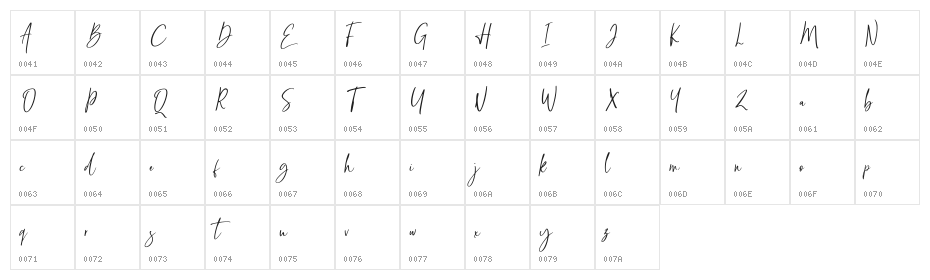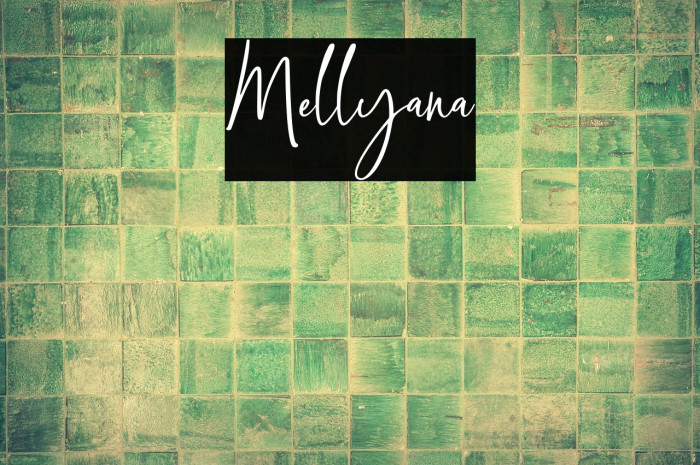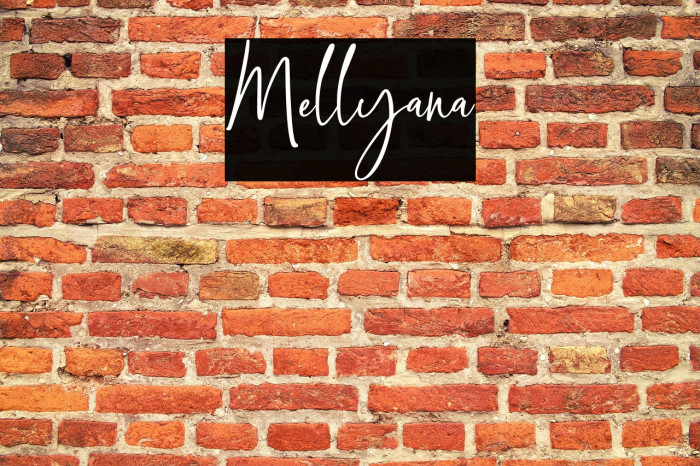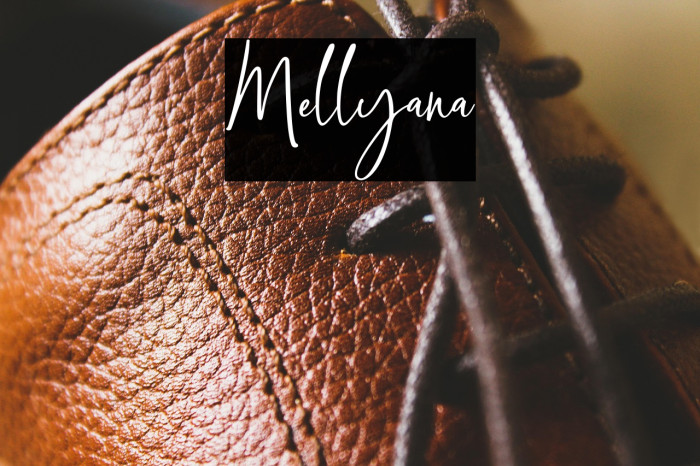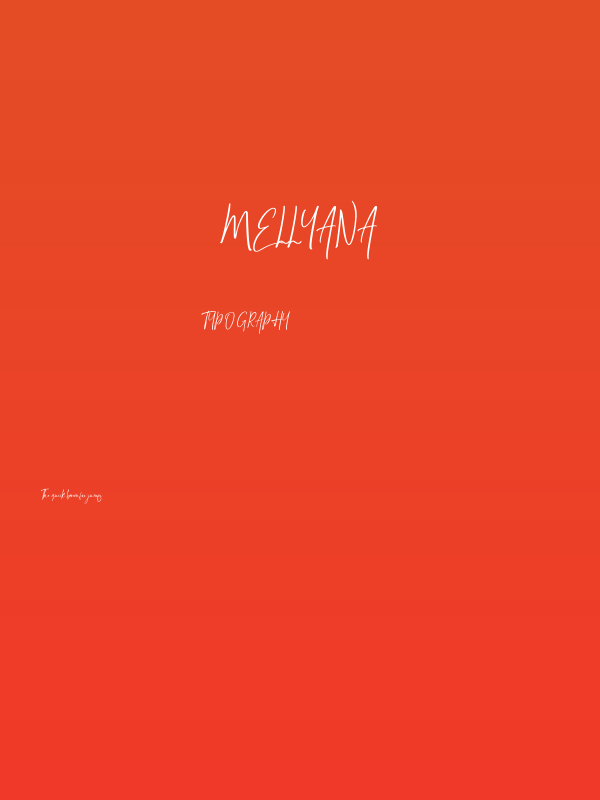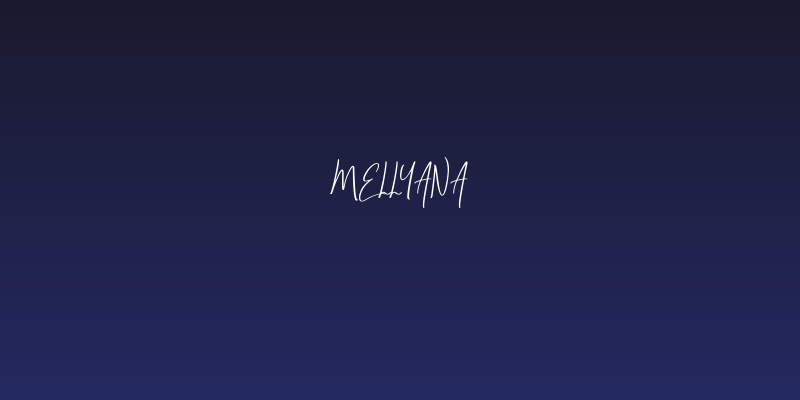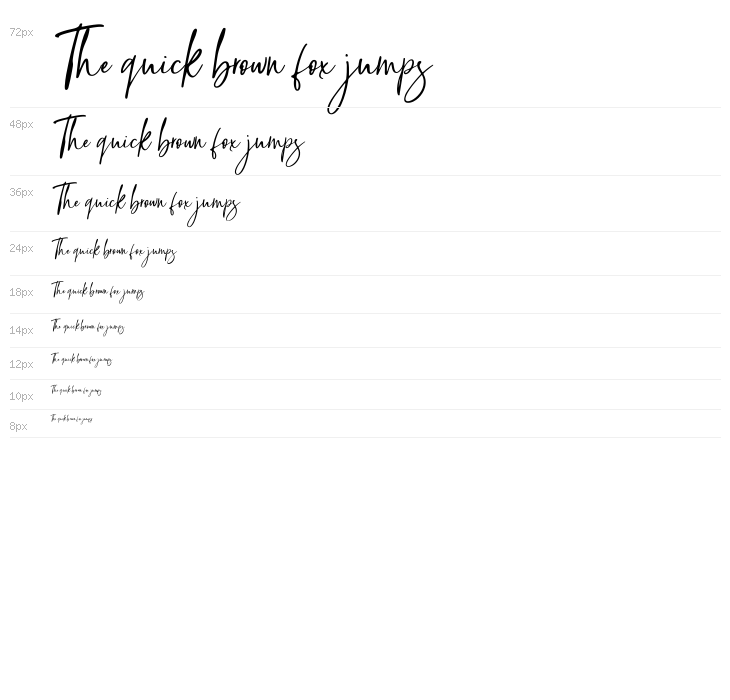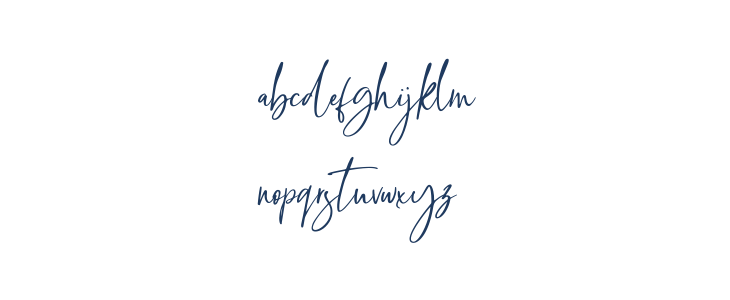
Mellyana Font
Mellyana Description
This font features a dynamic and fluid handwritten style, characterized by its elegant and flowing letterforms. The strokes are smooth and slightly irregular, giving it a personal and artistic touch. The uppercase letters are bold and prominent, while the lowercase letters maintain a consistent flow, enhancing readability. The font includes a full set of uppercase and lowercase letters, numbers, and a selection of special characters, making it versatile for various design needs. Its playful yet sophisticated appearance makes it suitable for creative projects that require a personal and inviting feel.
Use CaseLogos, Invitations, Artistic projects
Proposed ProjectsIdeal for wedding invitations, greeting cards, personal branding, and artistic projects.